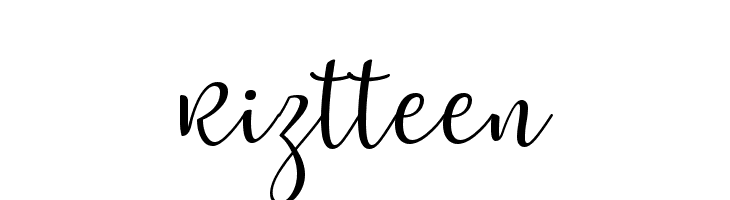
A graceful and elegant script font with flowing cursive letterforms.
A lively handwritten font with fluid, cursive letterforms and a playful elegance.
A fluid, elegant script font with an italic slant and expressive curves.
A whimsical, elegant cursive font with flowing lines and sophisticated curves.
A whimsical, elegant cursive font with flowing, dynamic strokes.
A cursive, handwritten font with elegant, flowing strokes and a consistent slant.